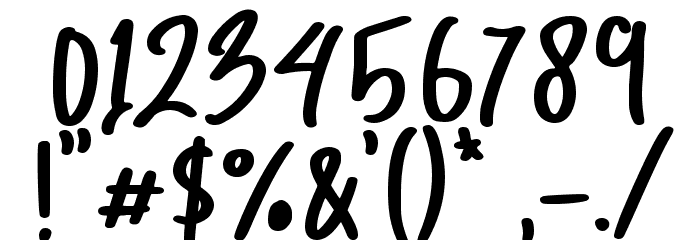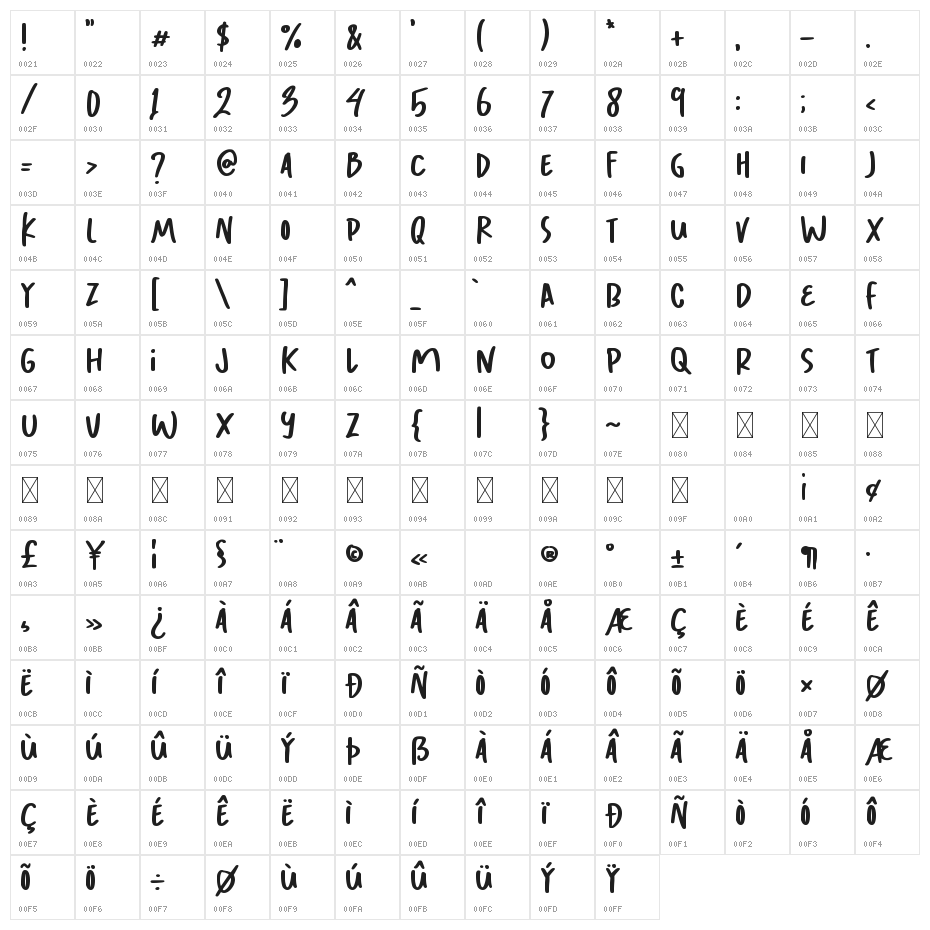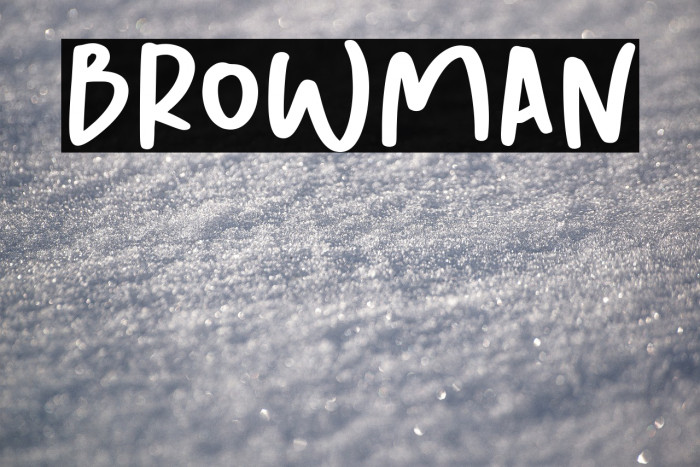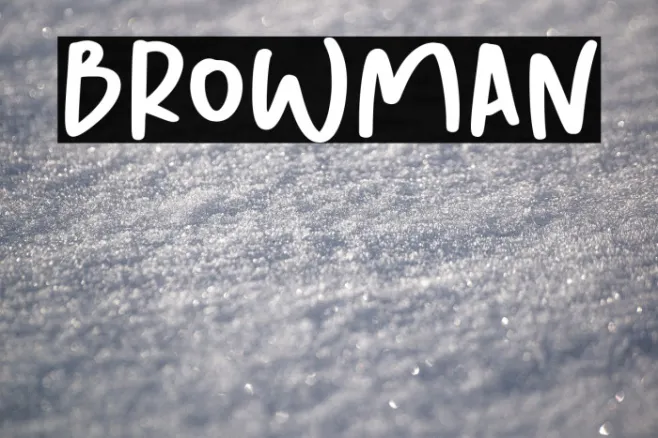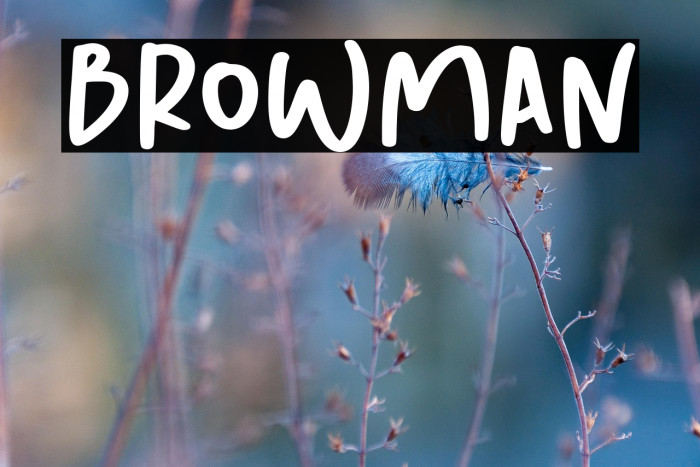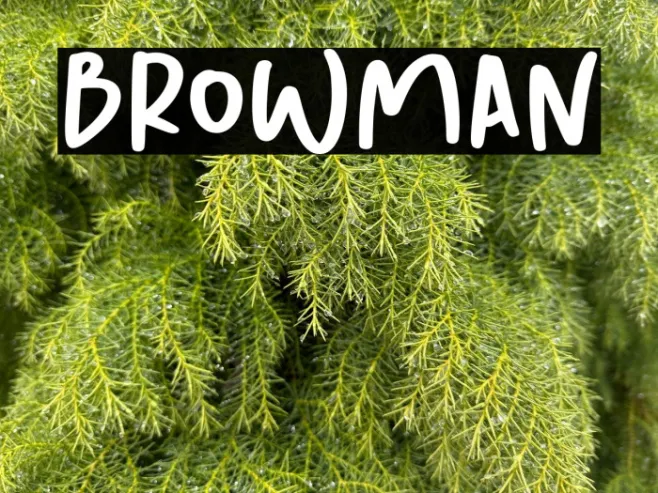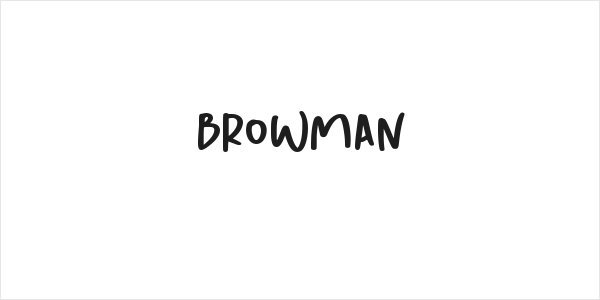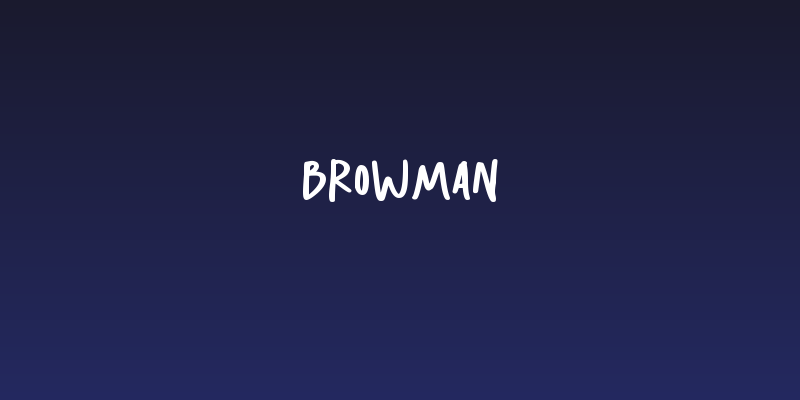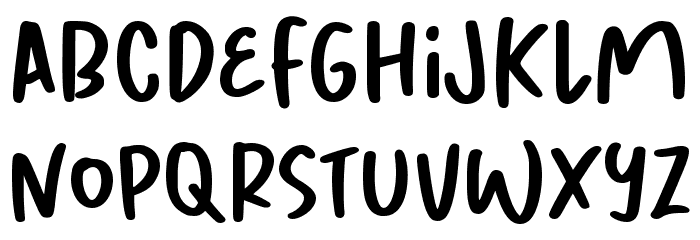
Browman Font
Browman Description
This font features a playful and energetic handwritten style, characterized by its bold and slightly irregular strokes. The letters have a casual, informal appearance, with a consistent thickness that gives them a strong presence on the page. The uppercase and lowercase letters maintain a cohesive look, while the numerals and special characters blend seamlessly into the overall design. The font's lively and dynamic nature makes it suitable for projects that require a touch of personality and creativity.
| Proposed Projects | Ideal for greeting cards, children's books, playful branding, and social media graphics. |